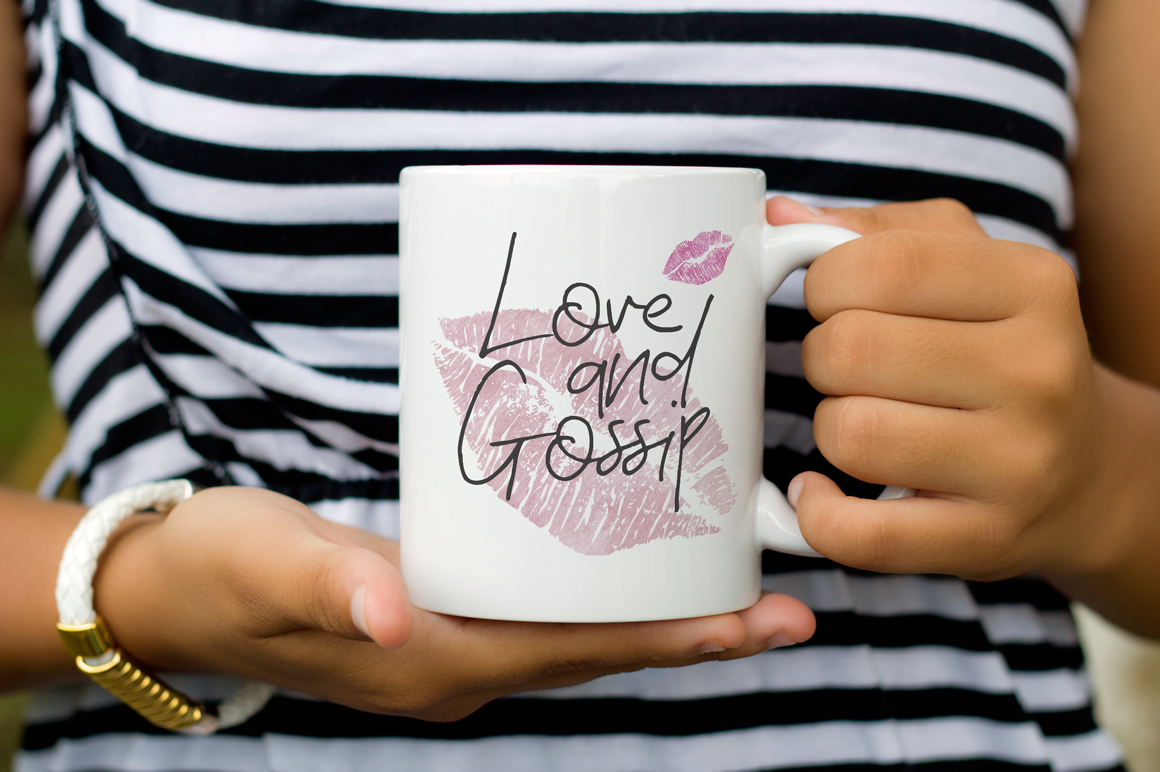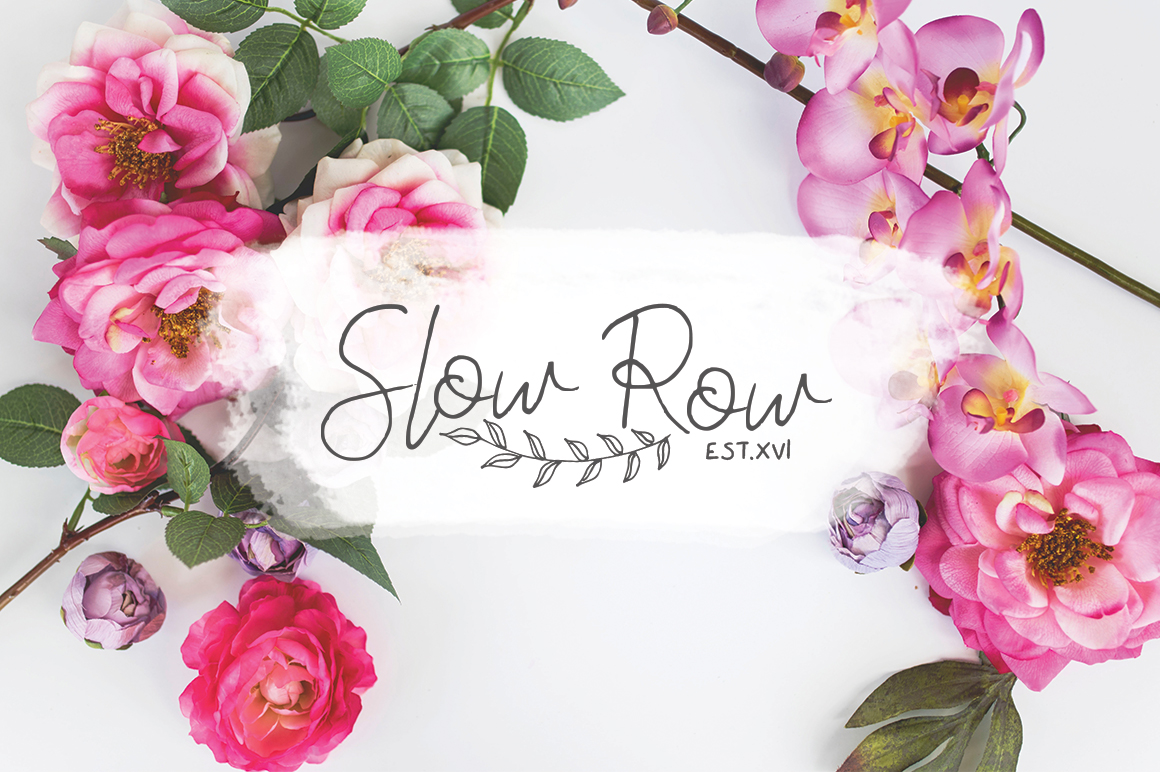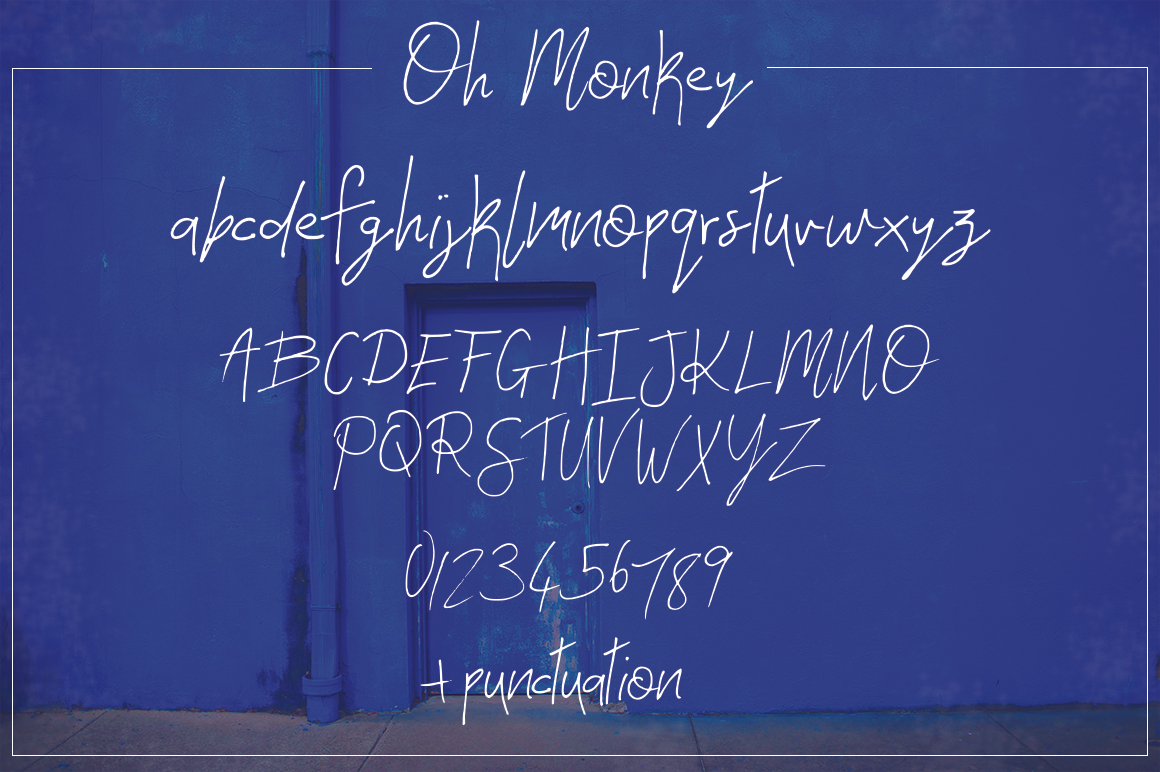
Oh Monkey Font
About Oh Monkey Font
Oh Monkey is a slinky new script font created with a monoline feel. Hand-drawn and natural, it can add a unique and charming appeal to your designs. The irregular flow creates an almost ‘signature’ look, which makes it suitable for a wide range of designs and artistic projects.